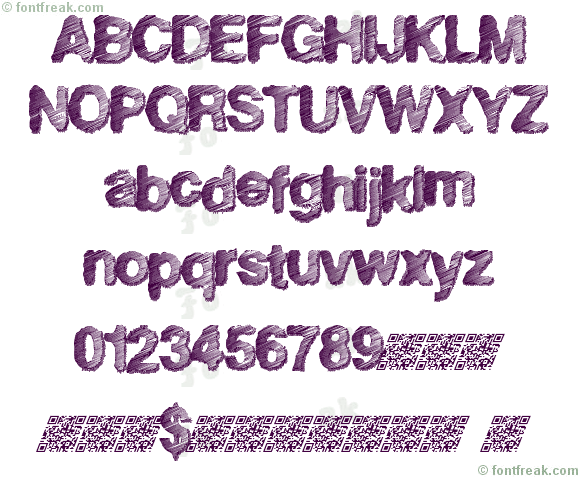
SuperFreak
About SuperFreak
SuperFreak by Xerographer Fonts is a distinctive display font that captures attention with its playful and energetic character. This font, released in 2014, features a unique handwritten style that combines a casual vibe with a touch of artistry. The strokes are uneven and dynamic, creating a sense of movement that feels both organic and lively. The contrast in stroke weight adds depth, while the spacing between characters allows for legibility without sacrificing its quirky charm. Decorative elements are evident in the whimsical flourishes that give SuperFreak its personality, making it an excellent choice for projects that require a fun and engaging typeface.
SuperFreak excels in various creative applications. It is perfect for designing vibrant movie posters that need to convey excitement and a sense of adventure. The font's playful nature also makes it an ideal choice for children's book covers, where whimsy and creativity are essential. Small business owners can utilize SuperFreak for eye-catching restaurant menus or promotional flyers that stand out in a crowded marketplace. Additionally, content creators looking to enhance their social media graphics will find this font to be an attractive option that resonates with a youthful audience.
Targeting graphic designers, small business owners, and content creators, SuperFreak offers a refreshing alternative to standard typefaces. Its unique aesthetic is sure to capture attention and elevate any design project. The SuperFreak font free download allows users to easily incorporate this standout typeface into their work without any licensing concerns. With its distinctive style and versatile applications, SuperFreak is a font that not only enhances visual communication but also leaves a lasting impression.